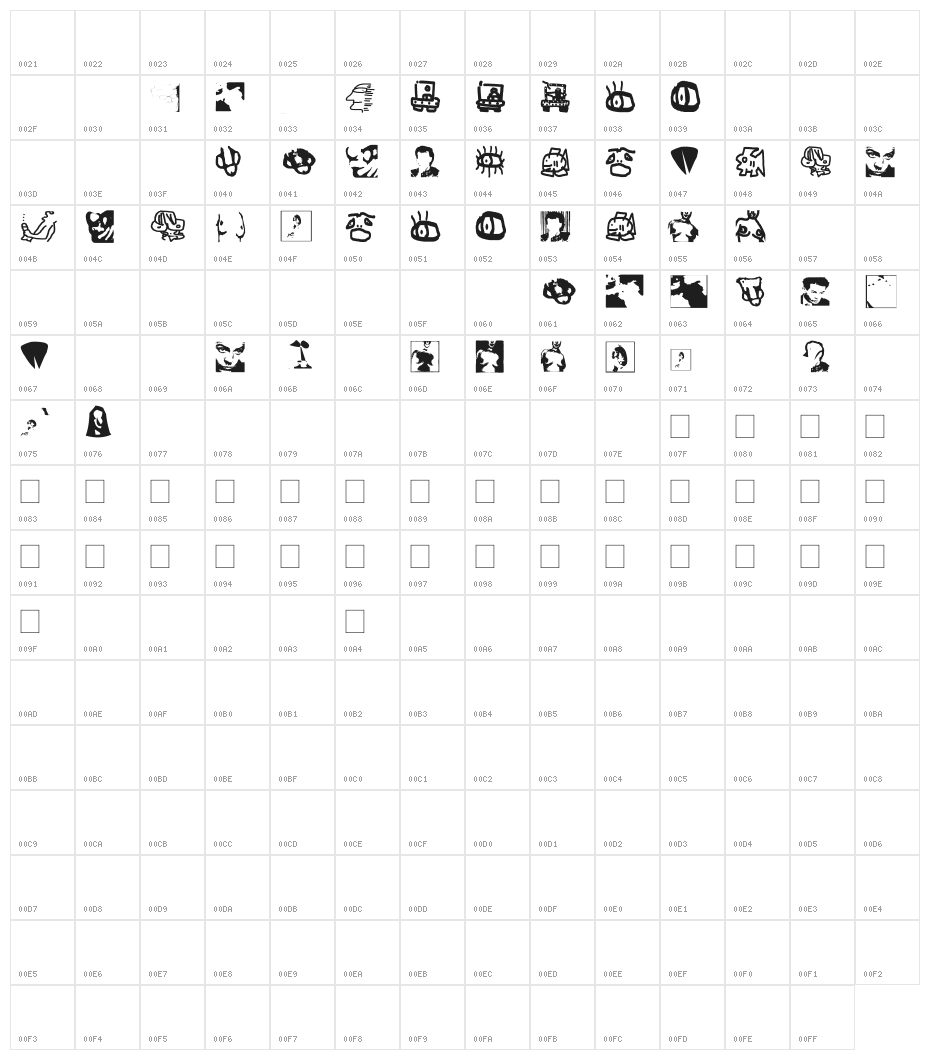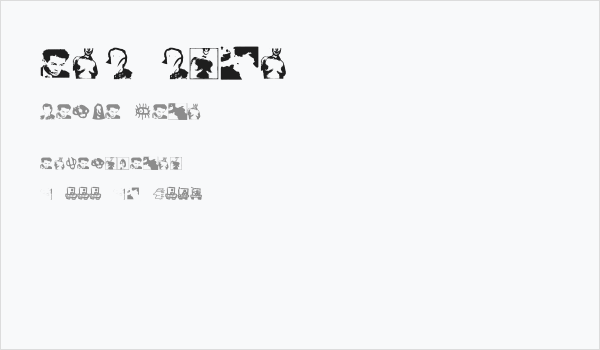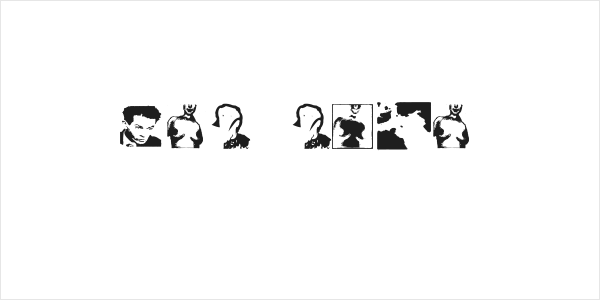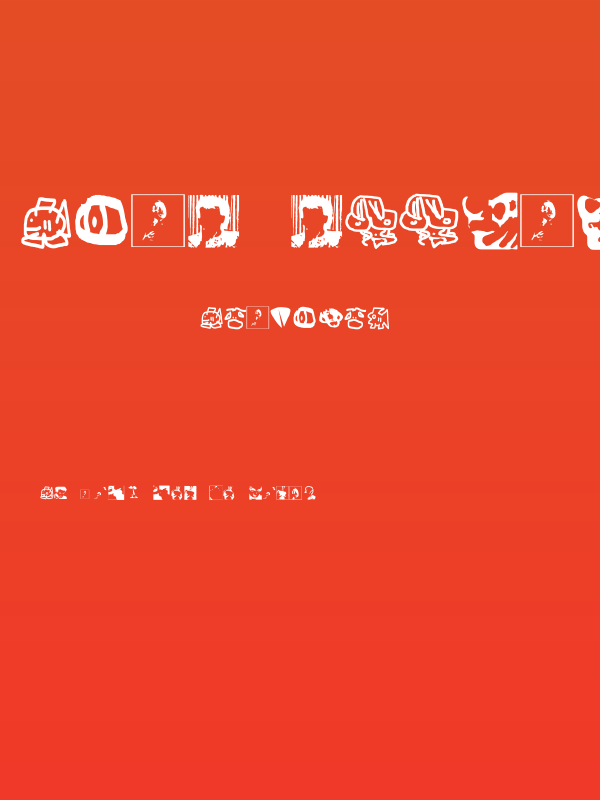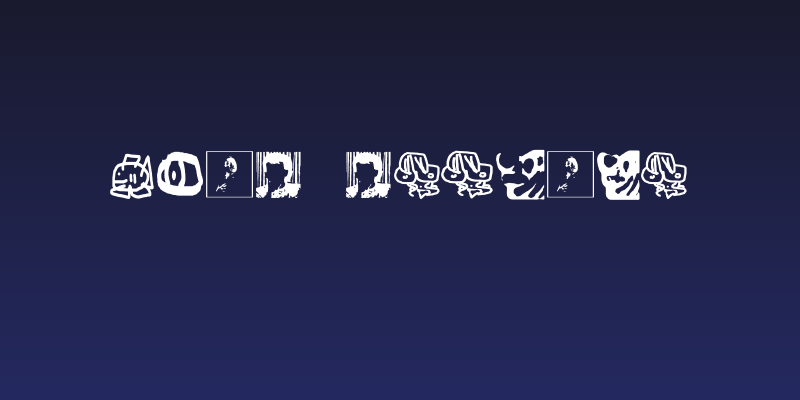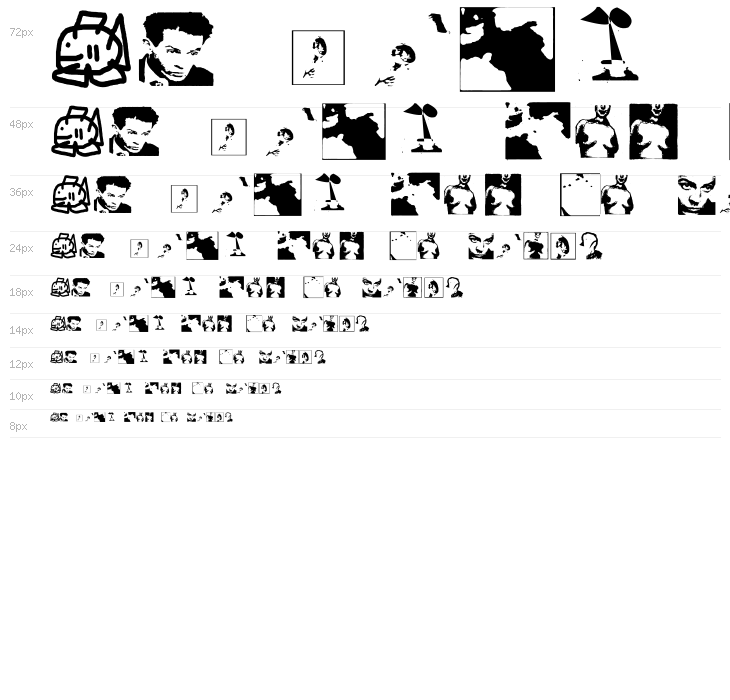
eros simboli Font
eros simboli Description
A highly decorative and eclectic symbol set featuring abstract, surreal, and erotic-themed pictograms, including stylized faces, body parts, and expressive illustrations with bold, high-contrast black and white forms.
Overall StyleDecorative, Surreal, Abstract, Erotic
Use CaseLogos, Posters, Artistic projects, Editorial illustrations
Proposed ProjectsArt posters, zines, album covers, experimental graphic design, adult-themed projects, expressive branding.